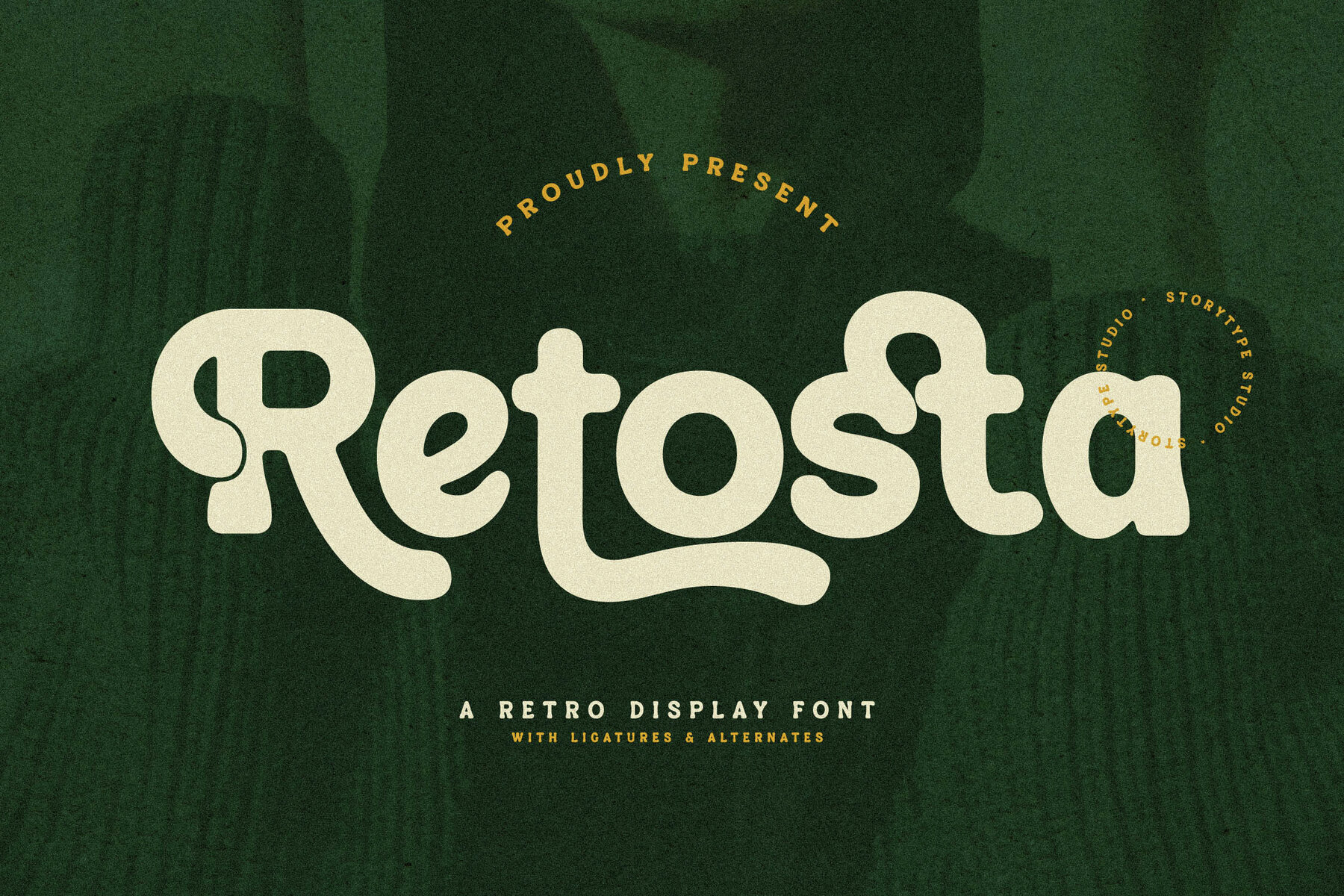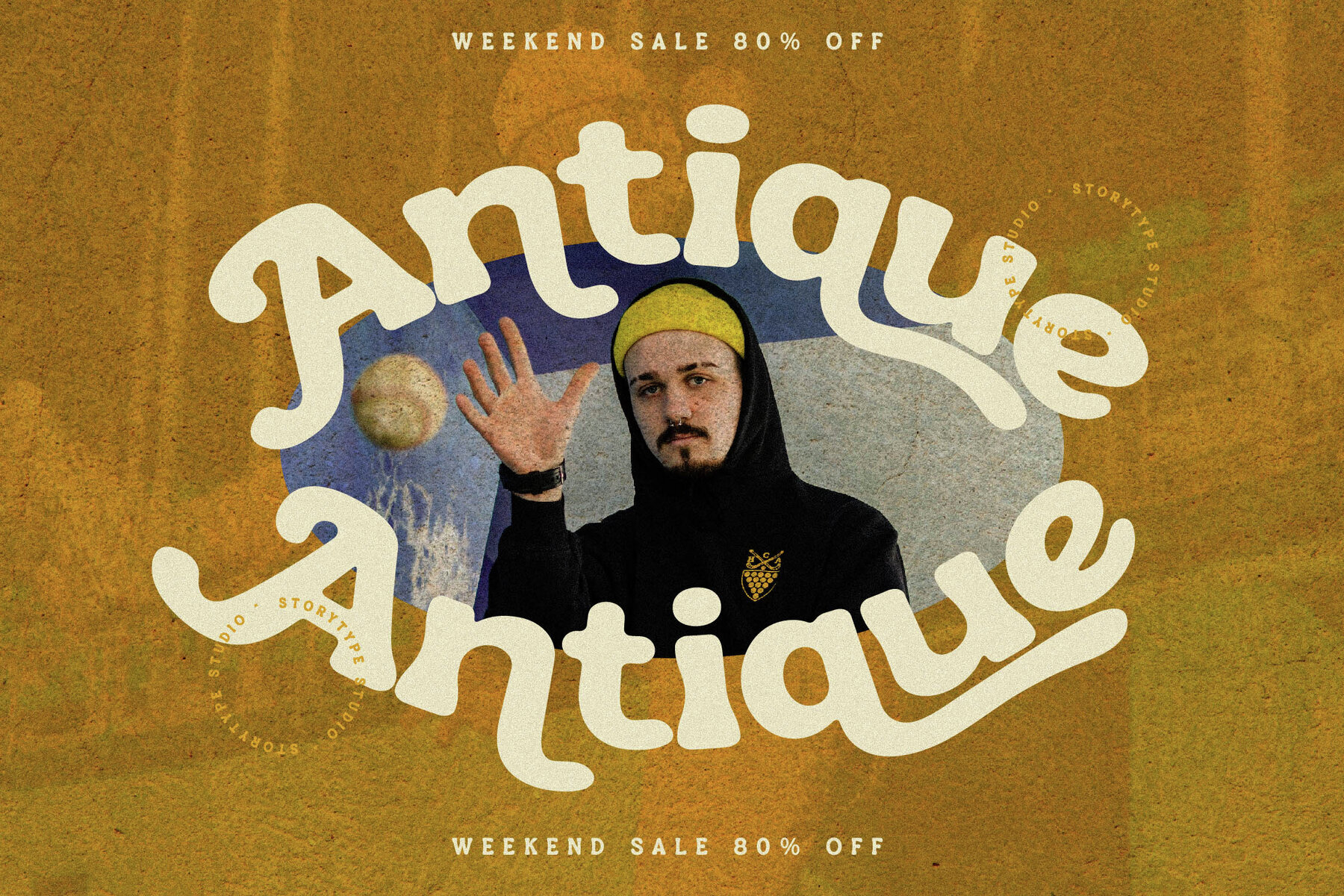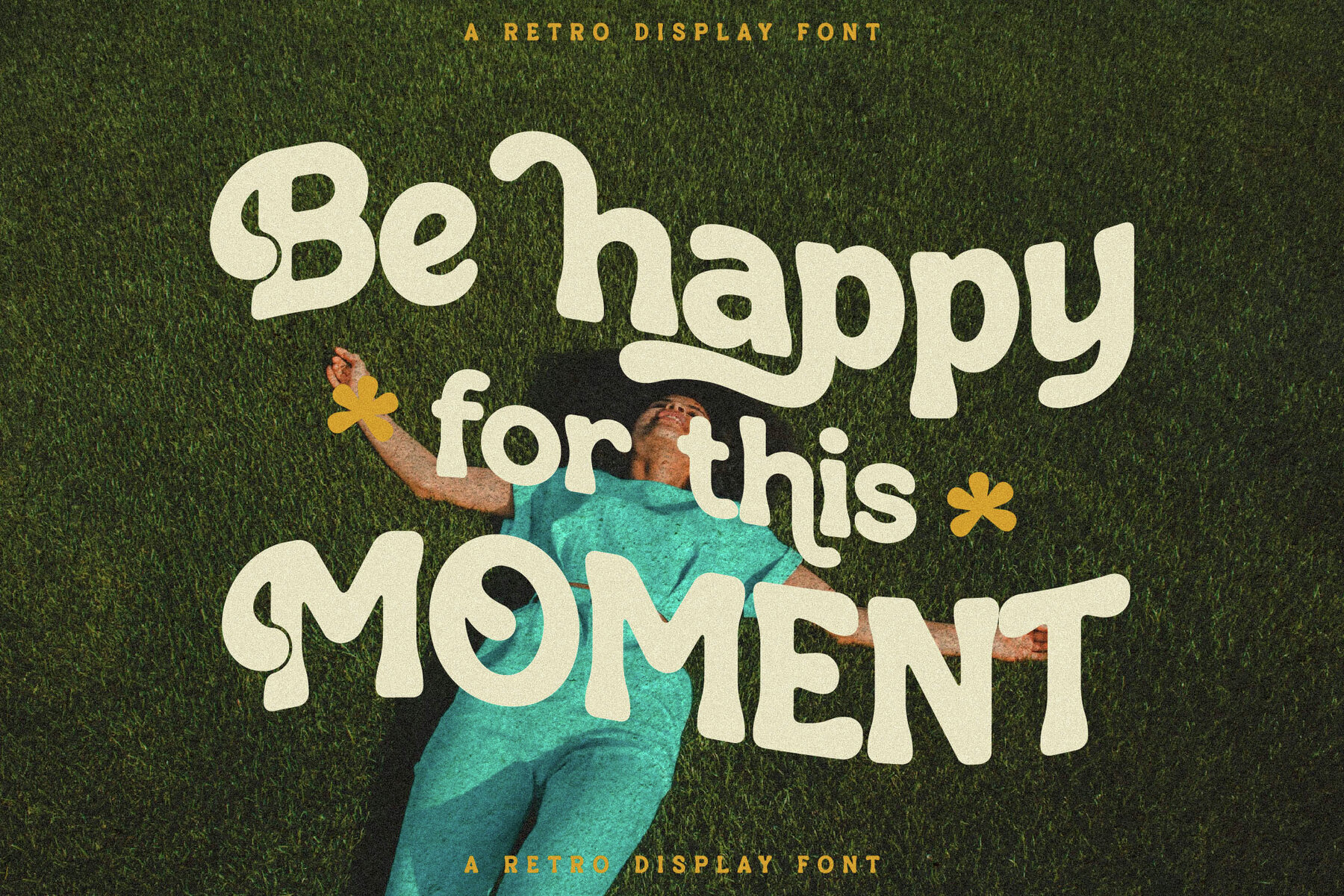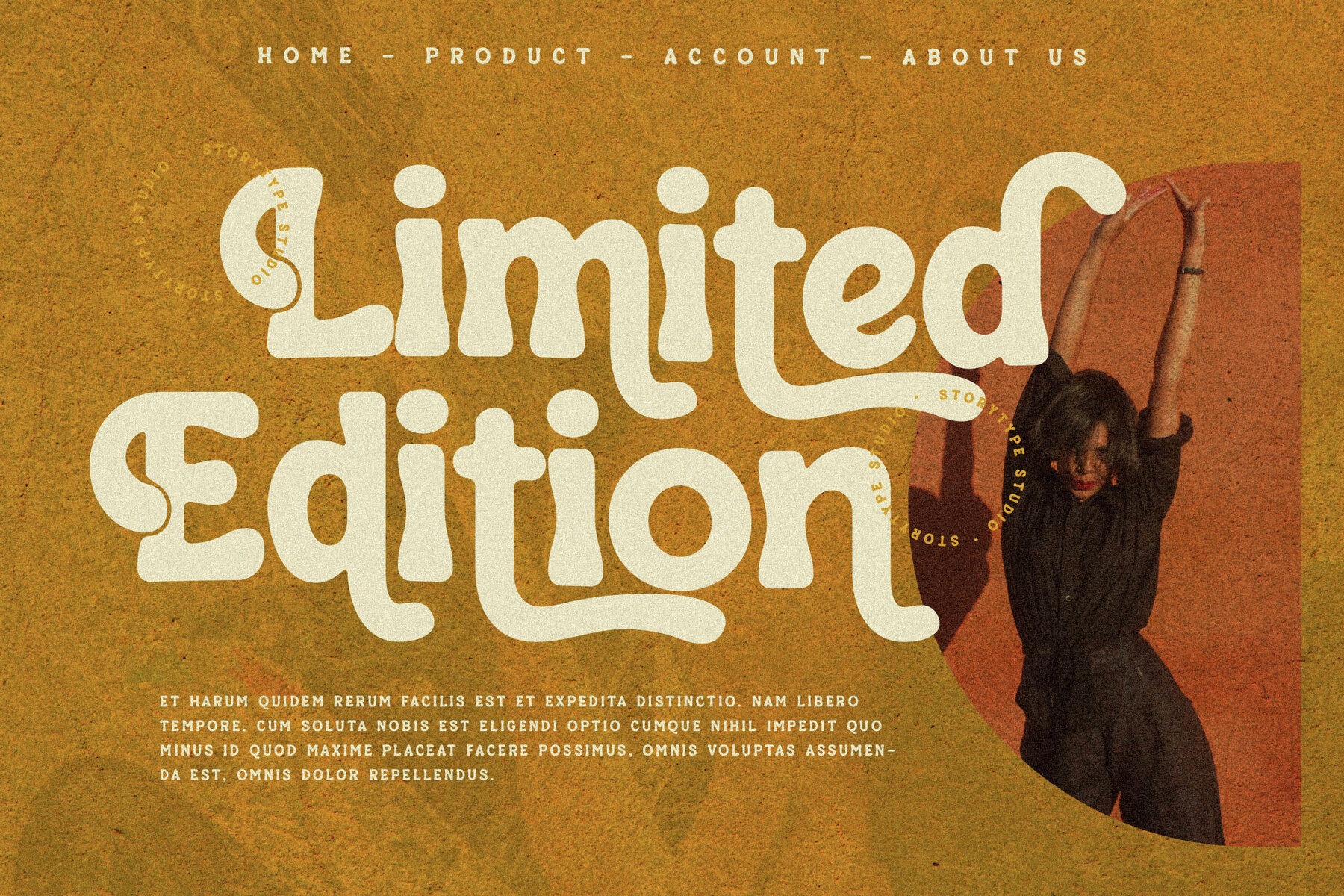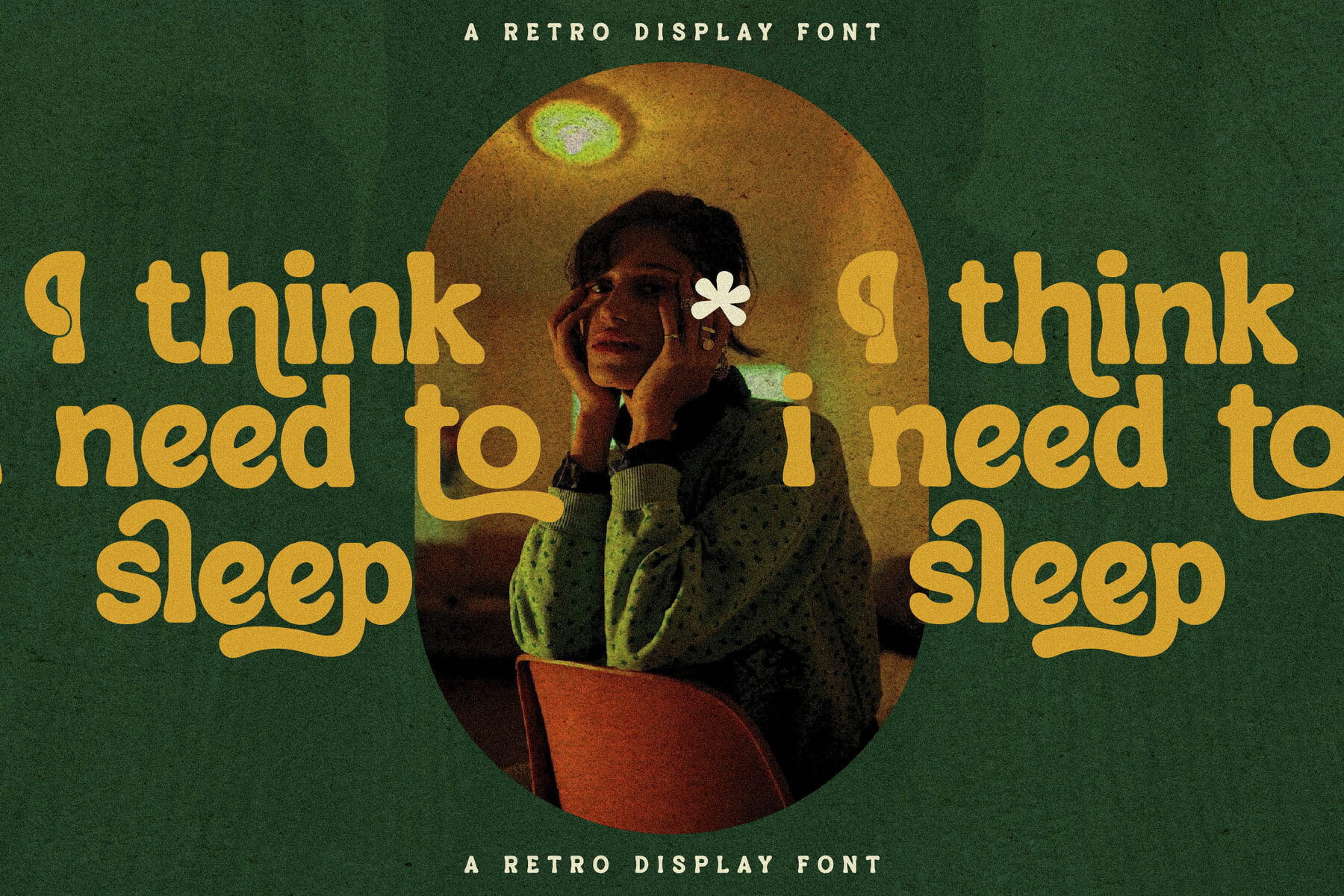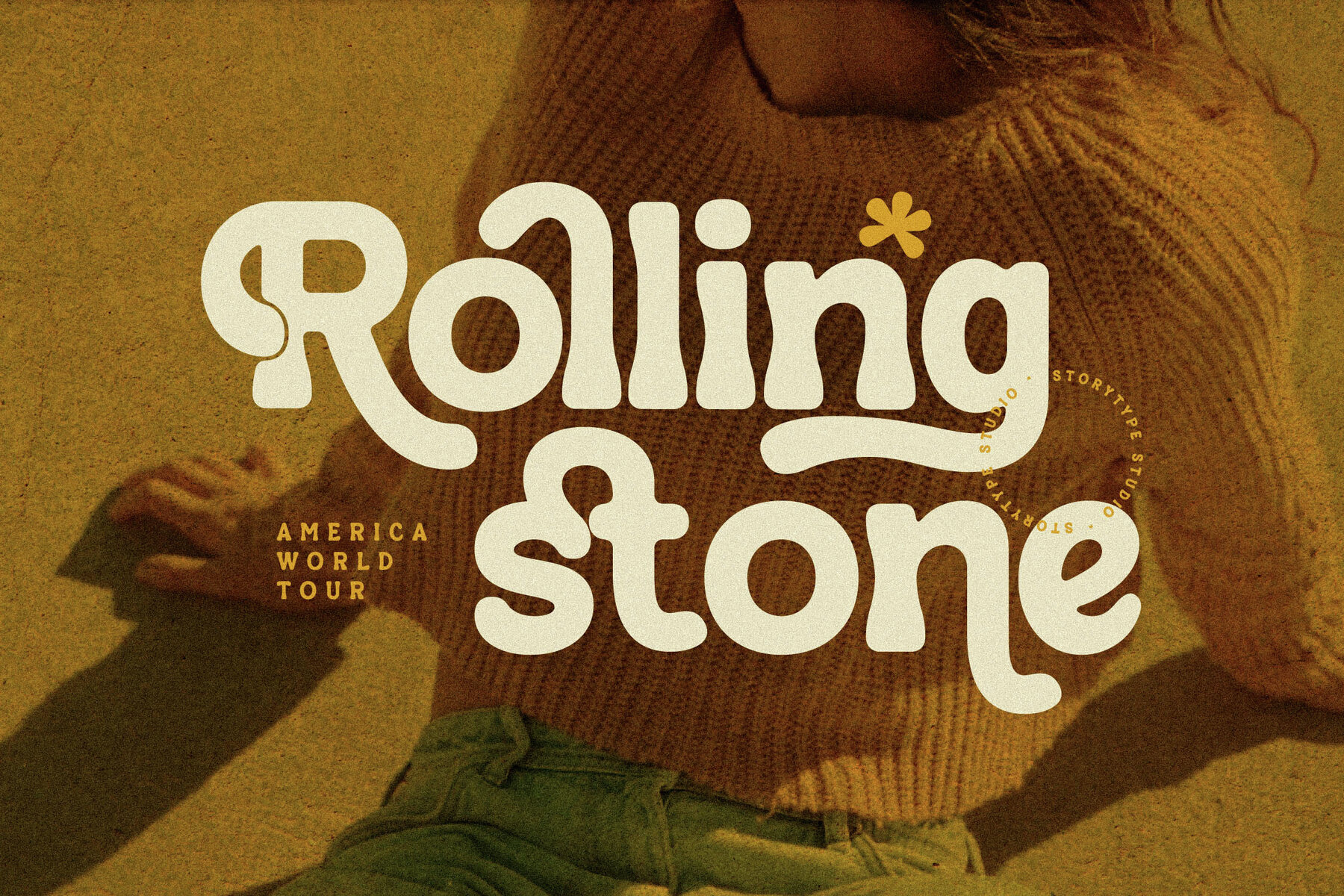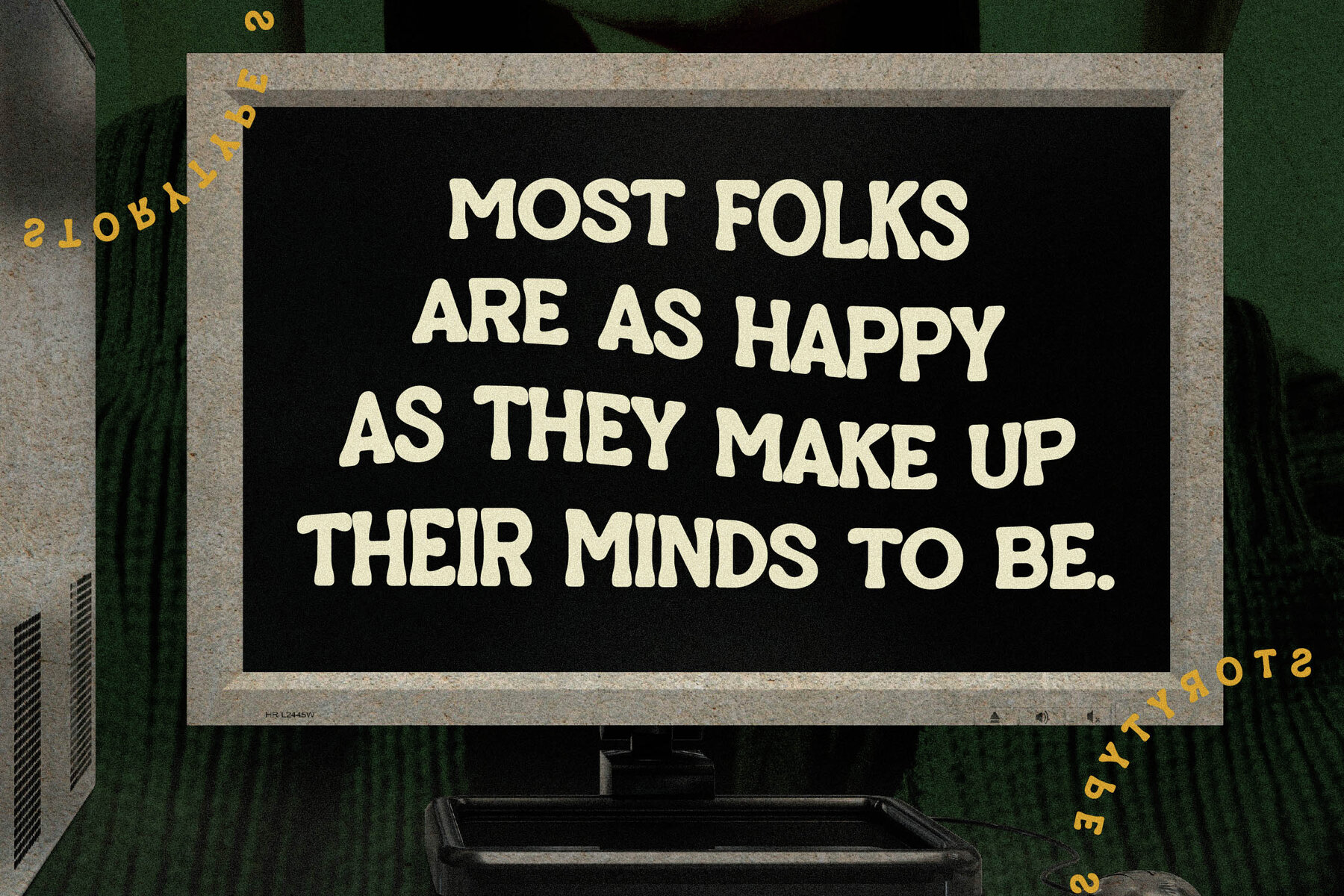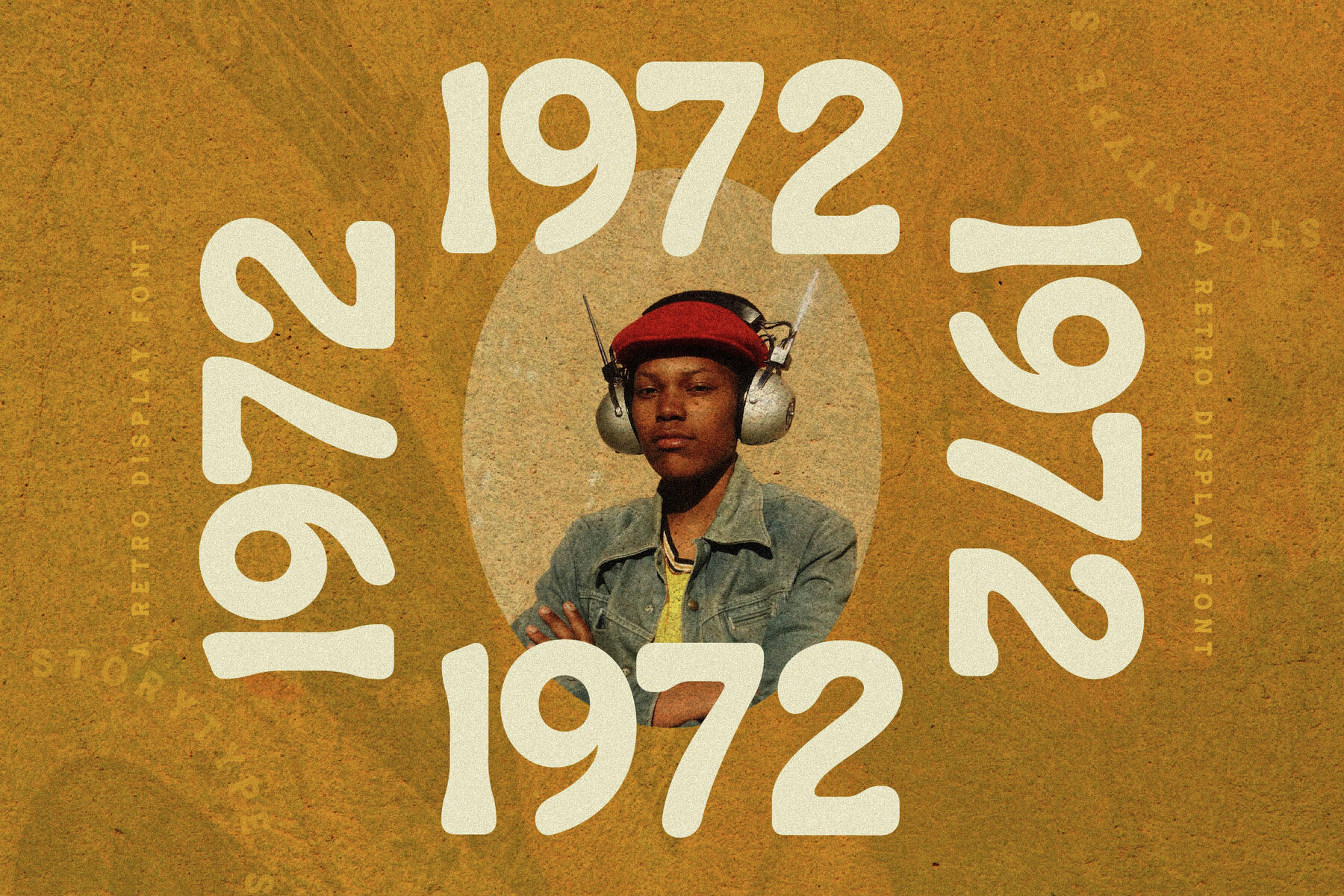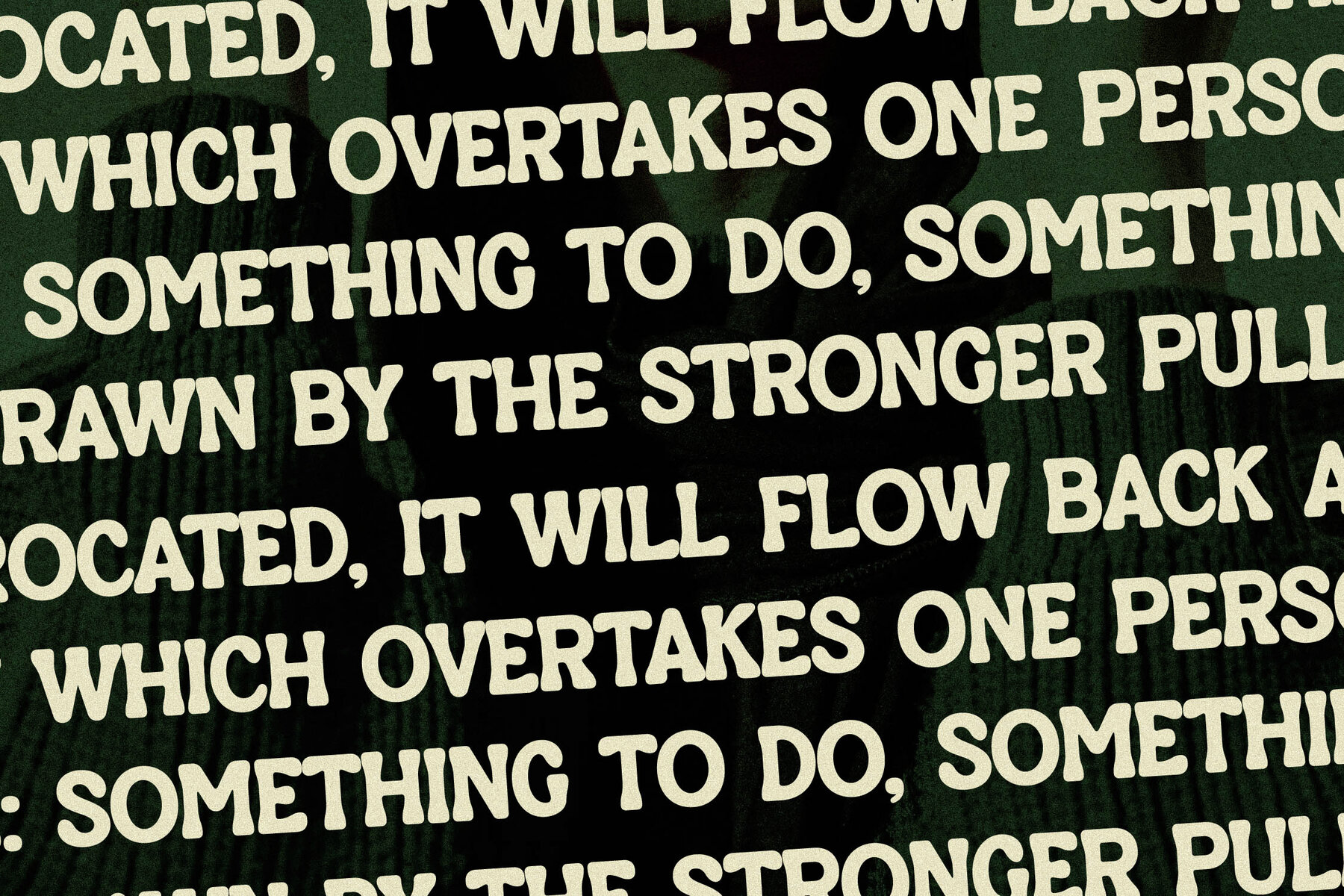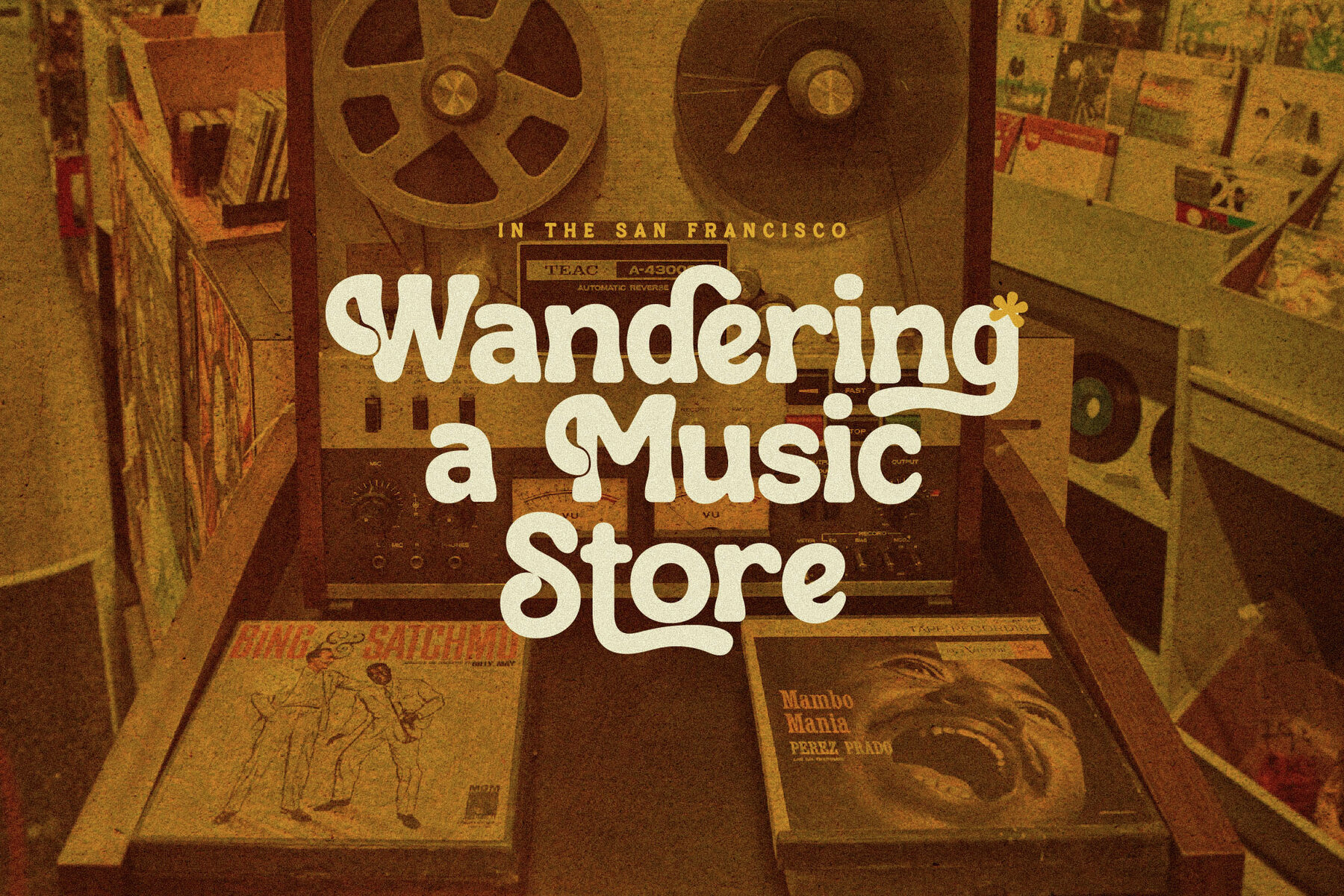
Retosta Font
Discover the elegance and sophistication of the Retosta Typeface, a modern and classic serif font that stands out with its unique style and contemporary appeal. Perfectly suited for creating luxury and high-end logos, this typeface is also ideal for book and movie titles, fashion brands, and magazine layouts. Whether you're crafting brand identities or stunning editorials, Retosta adds a touch of class and flair to your projects.Introducing Retosta Typeface